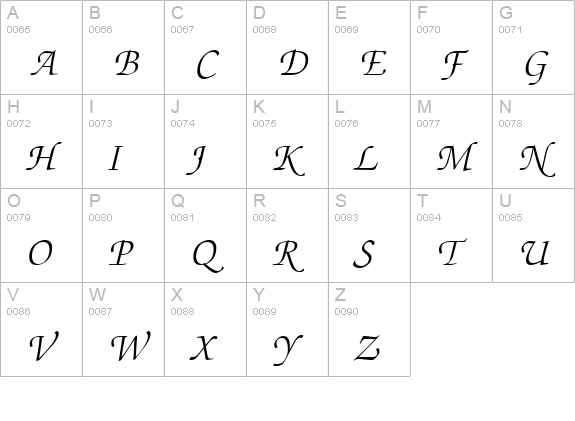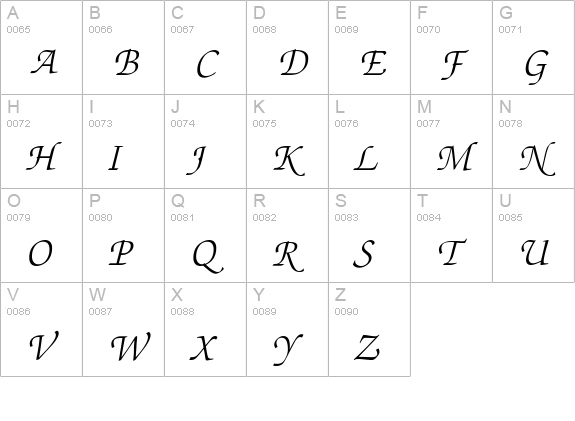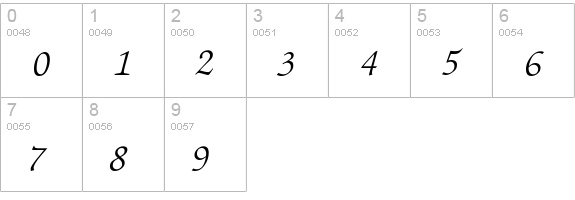
ZabriskieScript-Italic is a distinctive, italic variant in the ZabriskieScript typeface family \xE2\x80\x94 well suited to design and typography projects.
ZabriskieScript-Italic is a beautiful and elegant font that exudes sophistication and charm. With its delicate curves and stylish slant, this italic typeface adds a touch of class to any design project. Perfect for invitations, greeting cards, and branding materials, ZabriskieScript-Italic effortlessly conveys a sense of grace and refinement. And the best part? ZabriskieScript-Italic is completely free to download at FontsMarket.com! This means you can enhance your projects with this stunning font without breaking the bank. Whether you're a designer looking to elevate your work or an individual wanting to add a touch of flair to your personal creations, ZabriskieScript-Italic is the perfect choice. Don't miss out on this opportunity to access a high-quality font for free. Download ZabriskieScript-Italic today and elevate your designs with its timeless elegance.